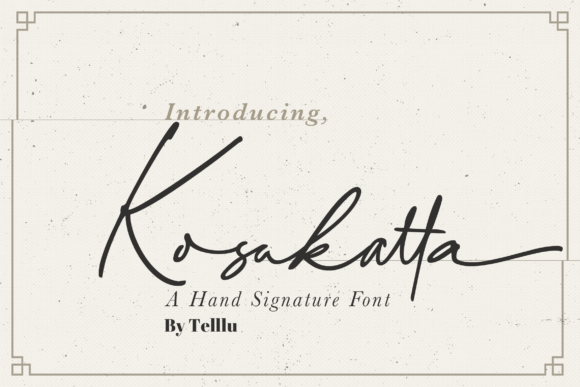
Kosakatta Font
Journey into the world of Kosakatta Font, a captivating script typeface that embodies grace and modernity. Step into a realm where calligraphy meets contemporary flair, creating a symphony of visual elegance. Immerse yourself in the allure of Kosakatta's intricate curves and sweeping strokes, the perfect choice for your creative endeavors.
With its seamless fusion of classic calligraphy and modern aesthetics, Kosakatta Font captivates the beholder with its refined beauty and captivating charm. Elevate your designs to new heights, transforming ordinary text into captivating works of art. From letterheads that exude professionalism to titles that demand attention, Kosakatta Font delivers an impact that resonates with sophistication and style.
Discover the versatility of Kosakatta Font, a true chameleon in the world of typography. Its adaptability shines through, whether you're crafting enchanting stationery that exudes personality or creating eye-catching logos that leave a lasting impression. With Kosakatta Font, your imagination is the only limit.
Embrace the allure of Kosakatta Font, a testament to the power of creativity and imagination. Let your artistic vision soar as you effortlessly weave words into unforgettable masterpieces, leaving your audience mesmerized. Experience the transformative power of Kosakatta Font and unlock a world of typographic possibilities.